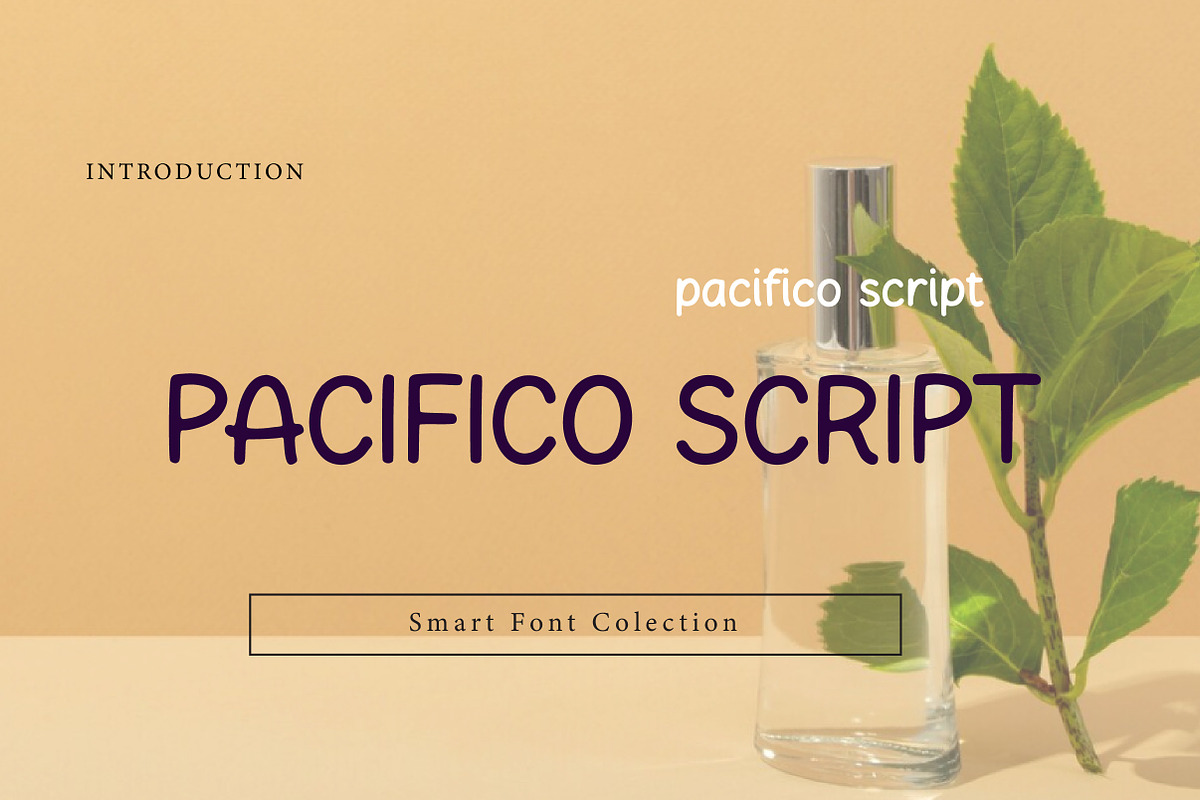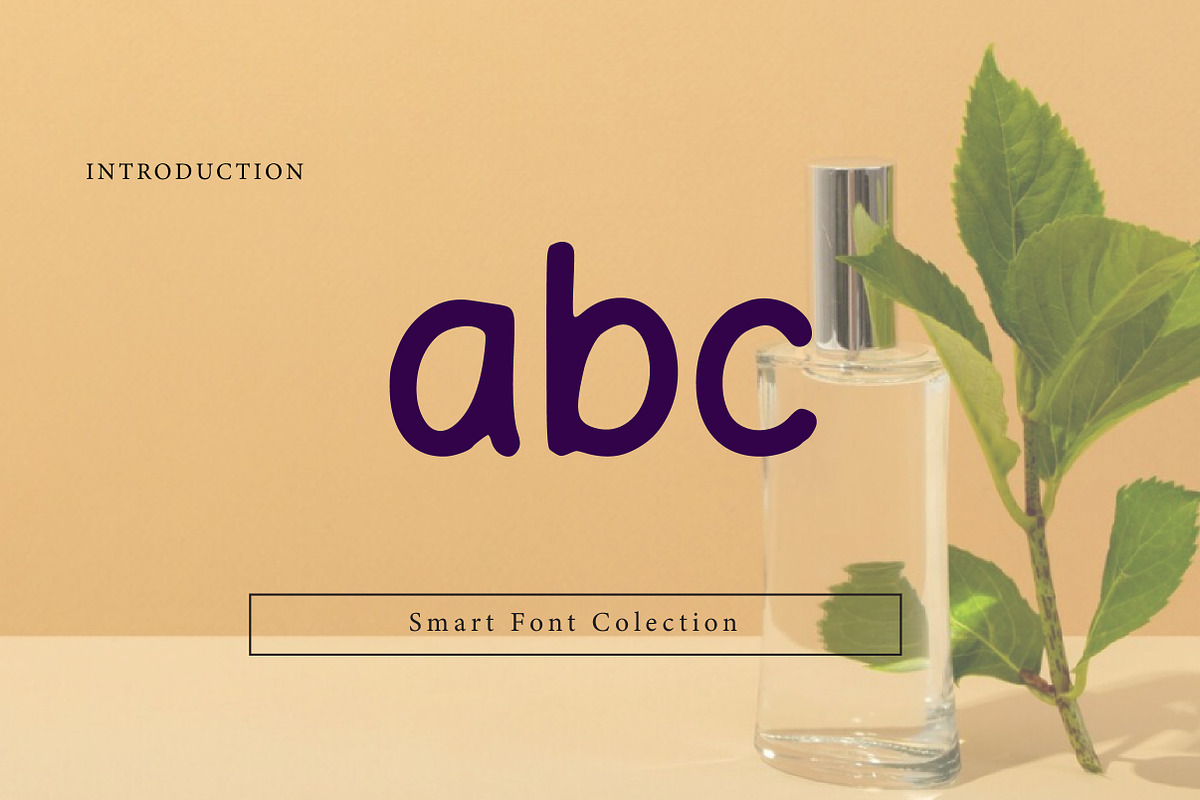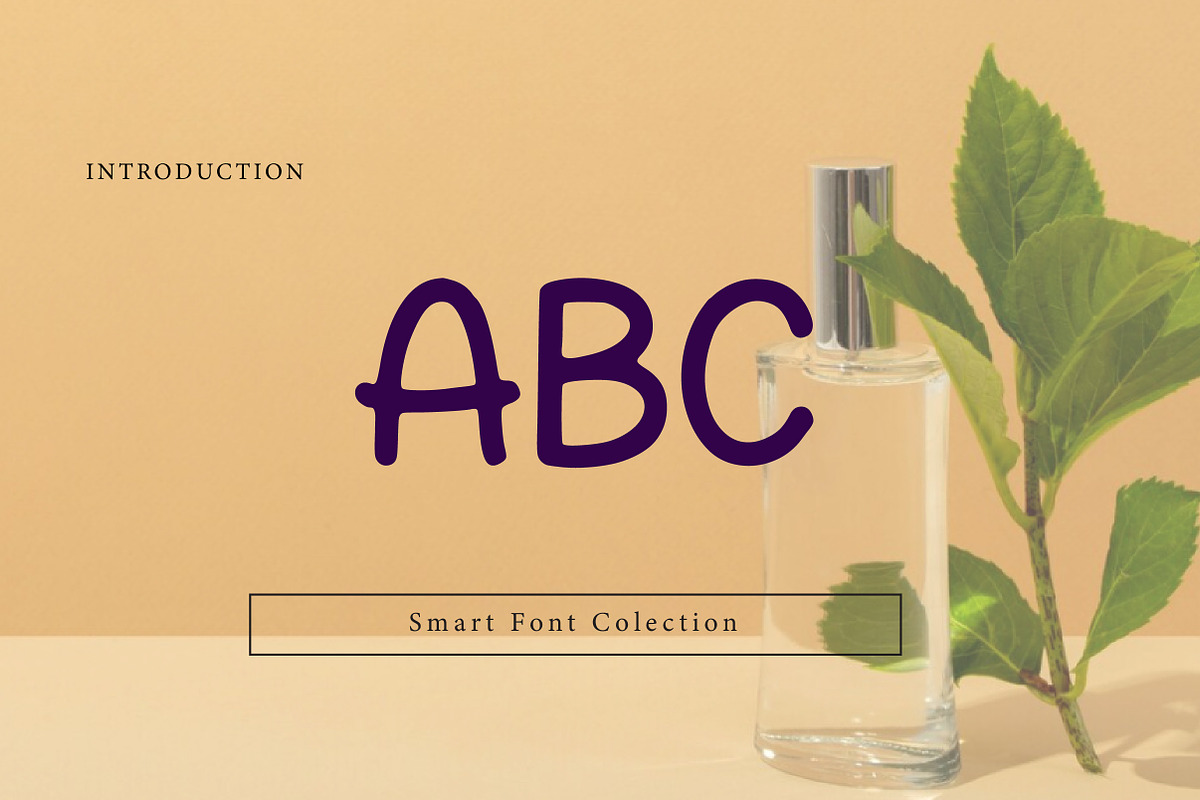
Pacifico Script
Pacifico Script is a smooth and stylish handwritten script font inspired by casual brush lettering. With its flowing curves and relaxed personality, this font is perfect for logos, branding, posters, social media graphics, packaging, invitations, and creative projects that need a friendly, retro, and elegant handwritten feel. Pacifico Script works beautifully in both digital and print designs, adding warmth and personality to any layout.